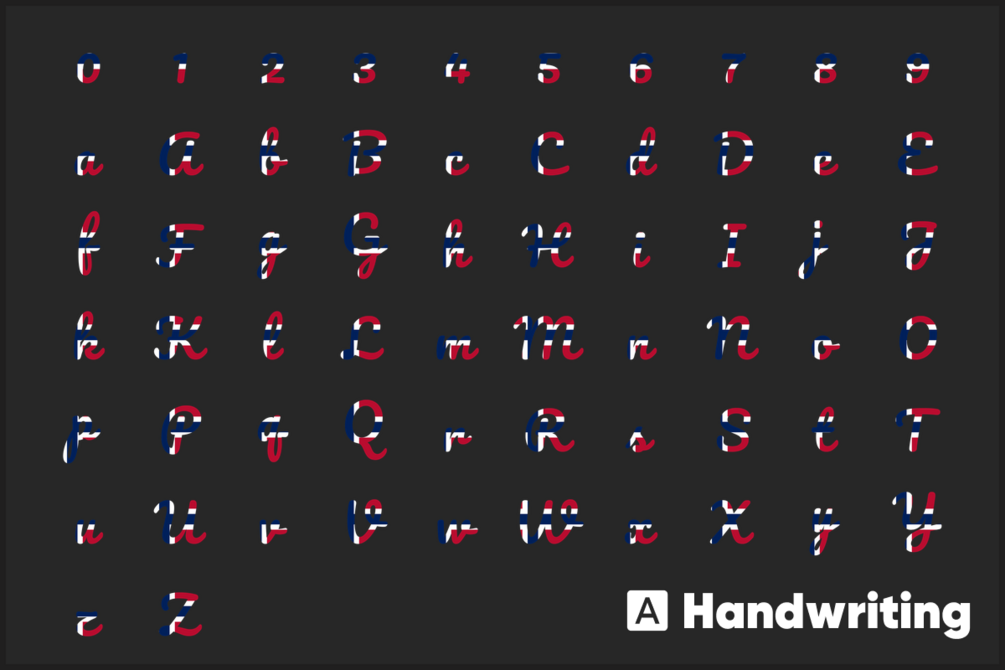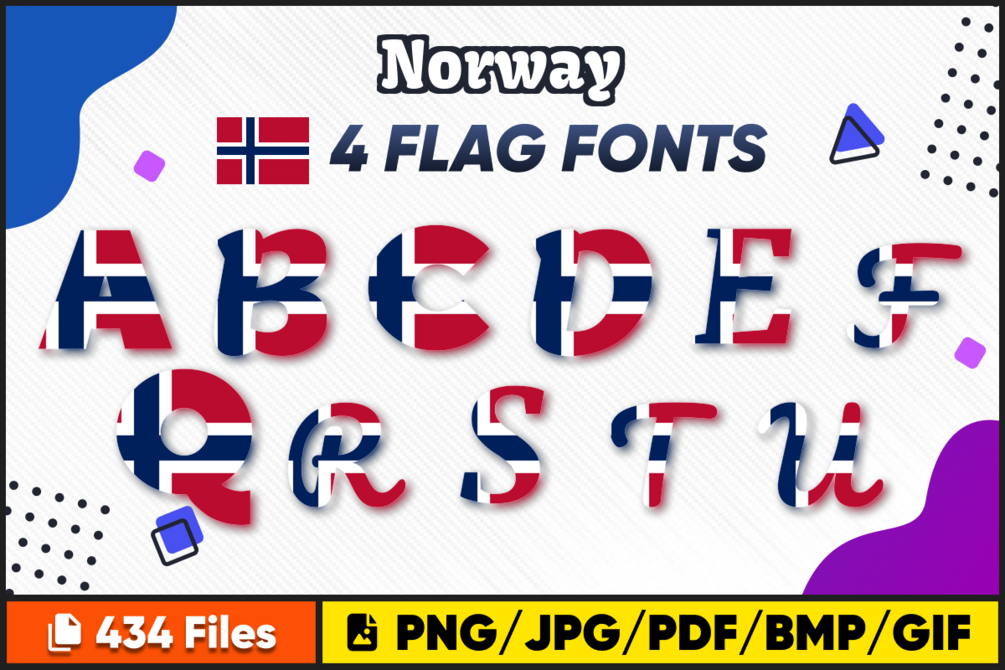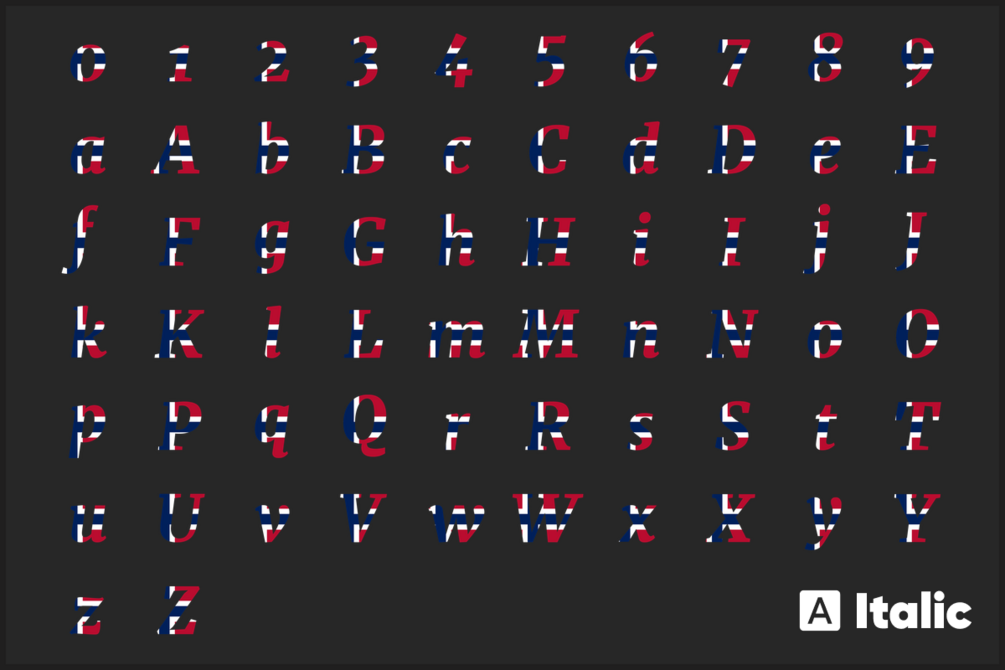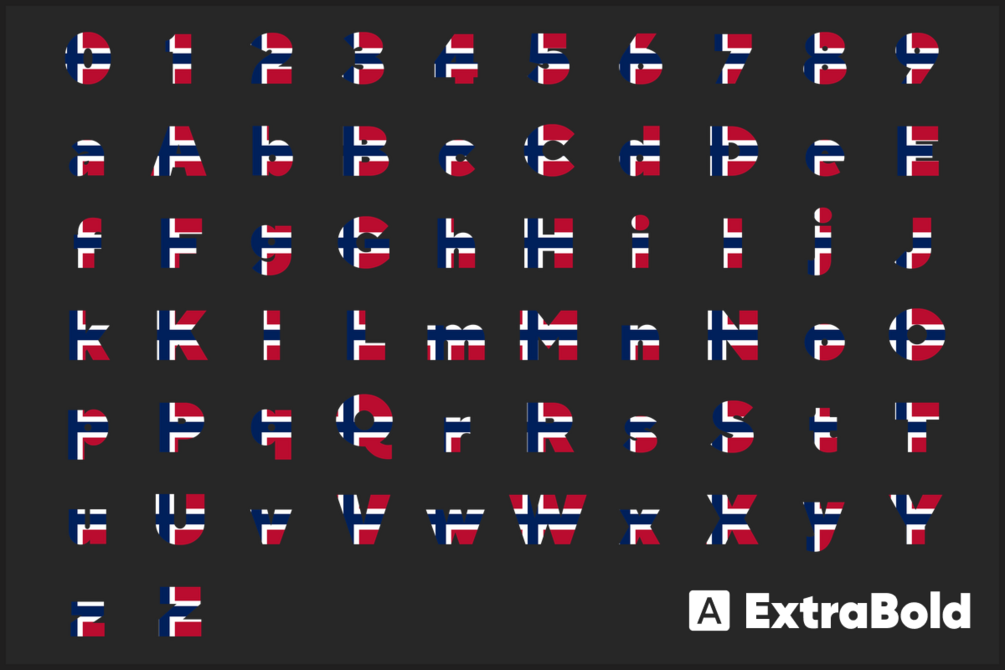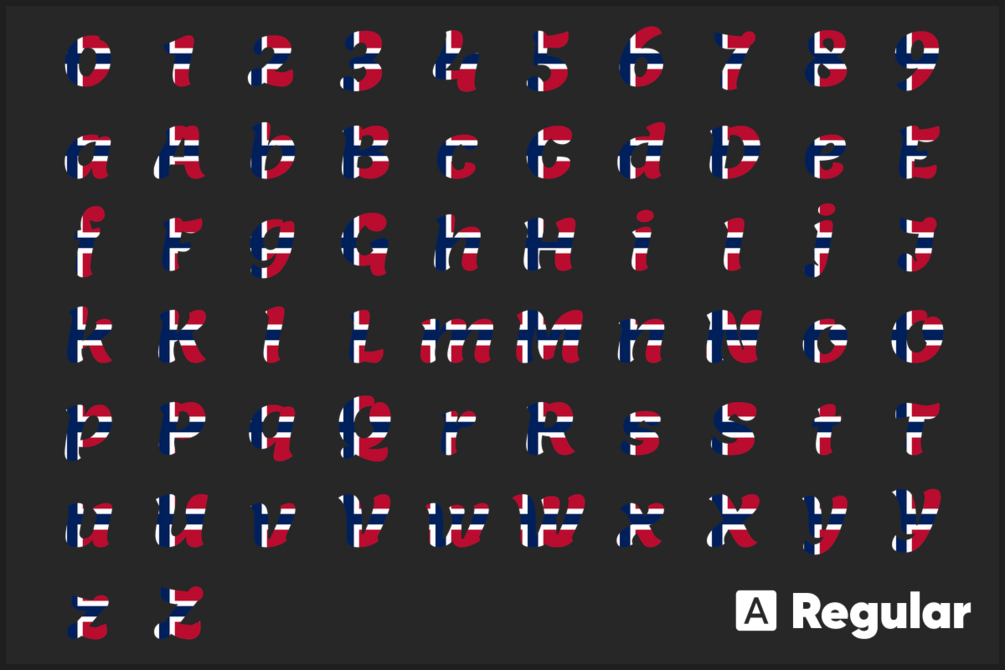
Introducing Norway Font free download Flag Font, Alphabet, Digital Cut Files. These top-quality country font images are perfect for all your crafting needs! Use Norway Font free download flag PNG files for t-shirt designs, scrapbooking, photo albums, card making, mug designs, and prints. The possibilities are endless!